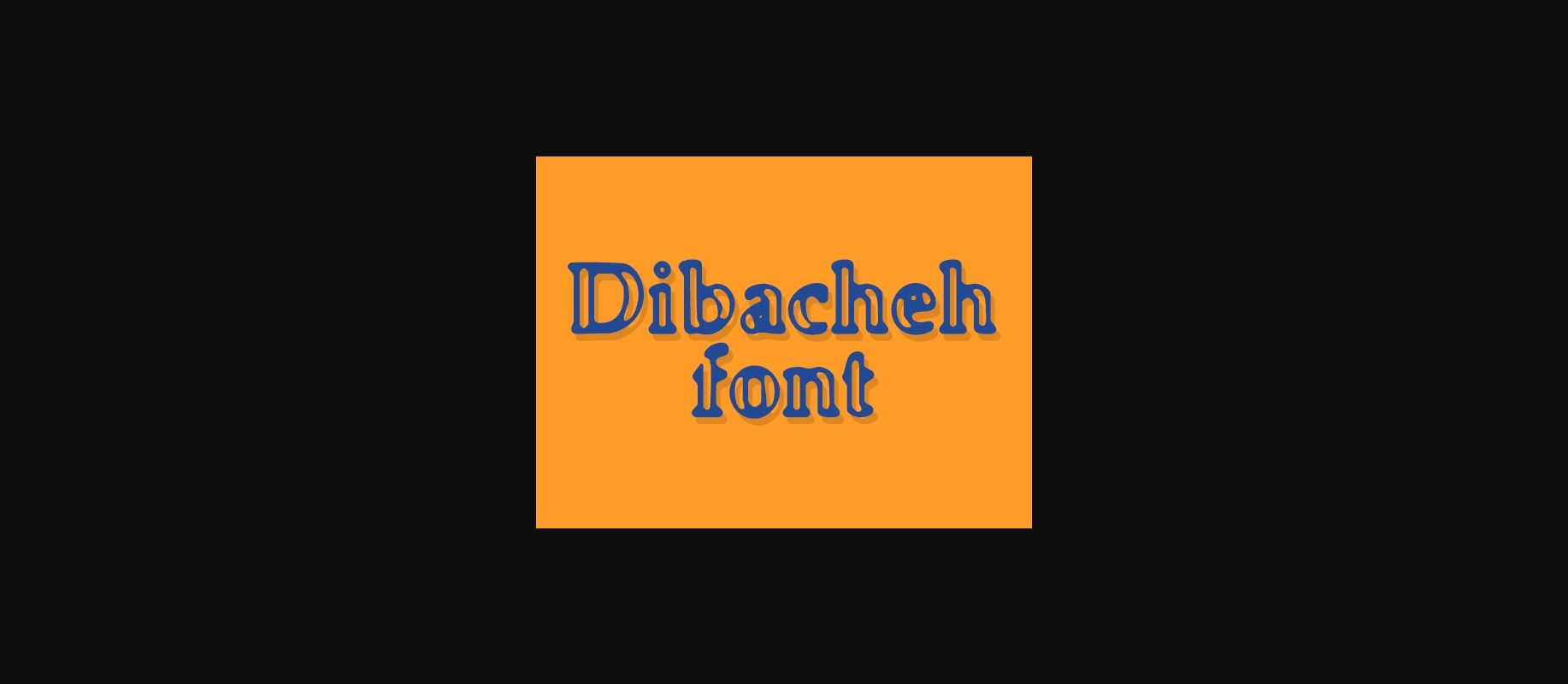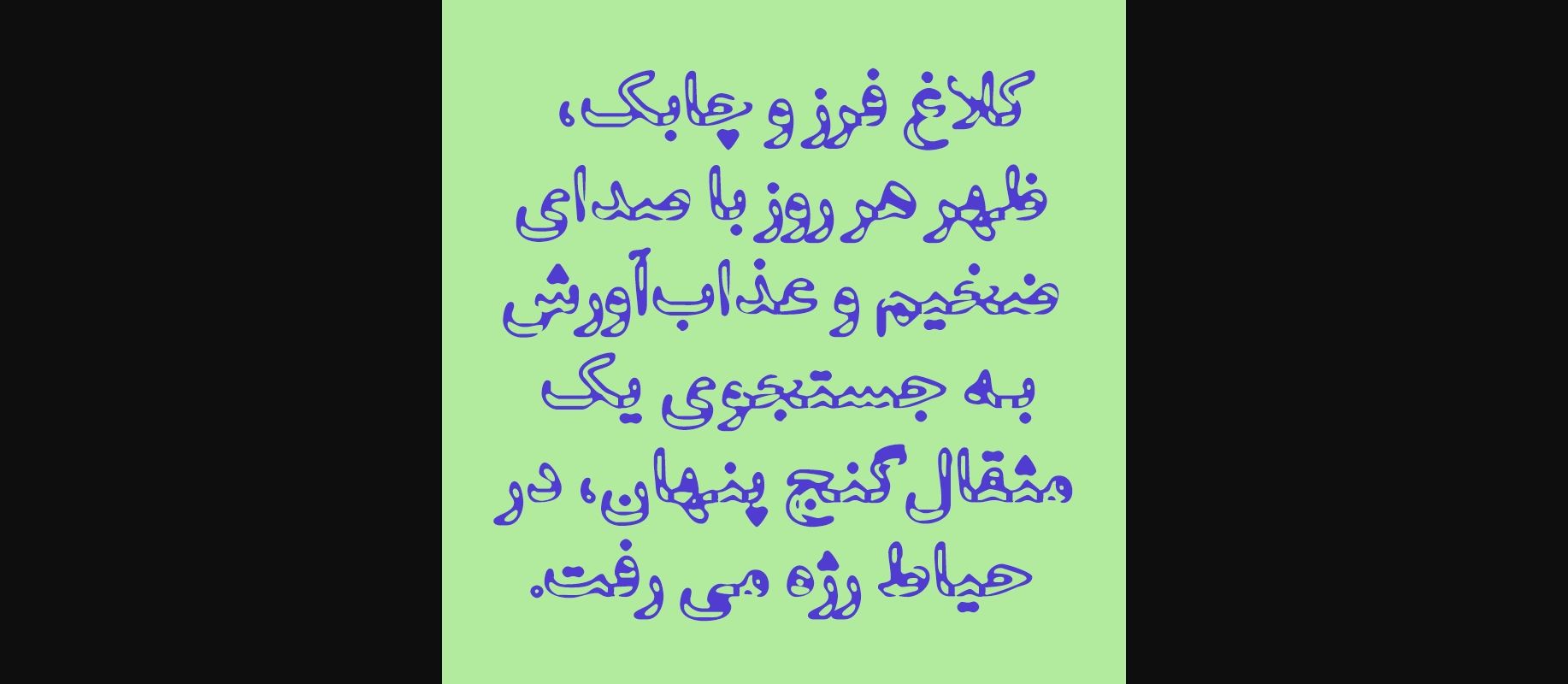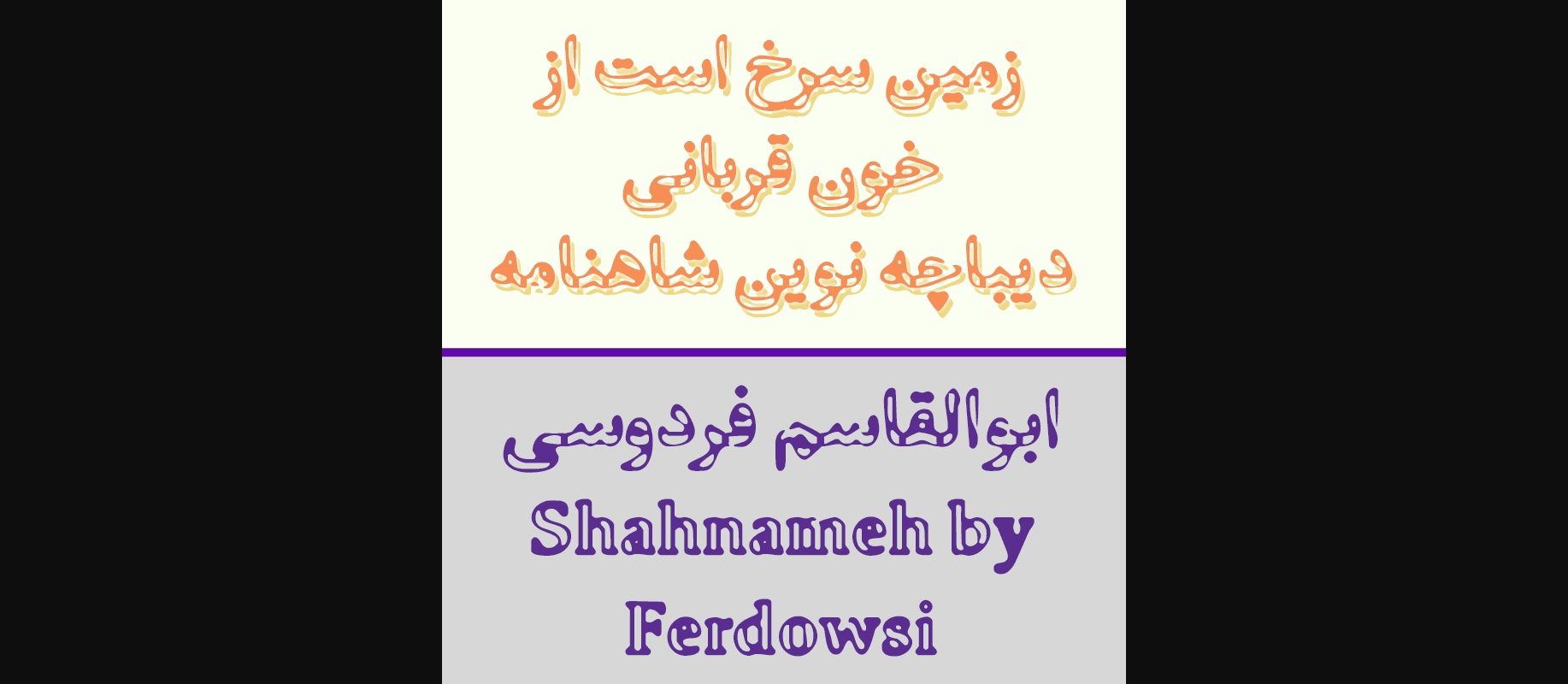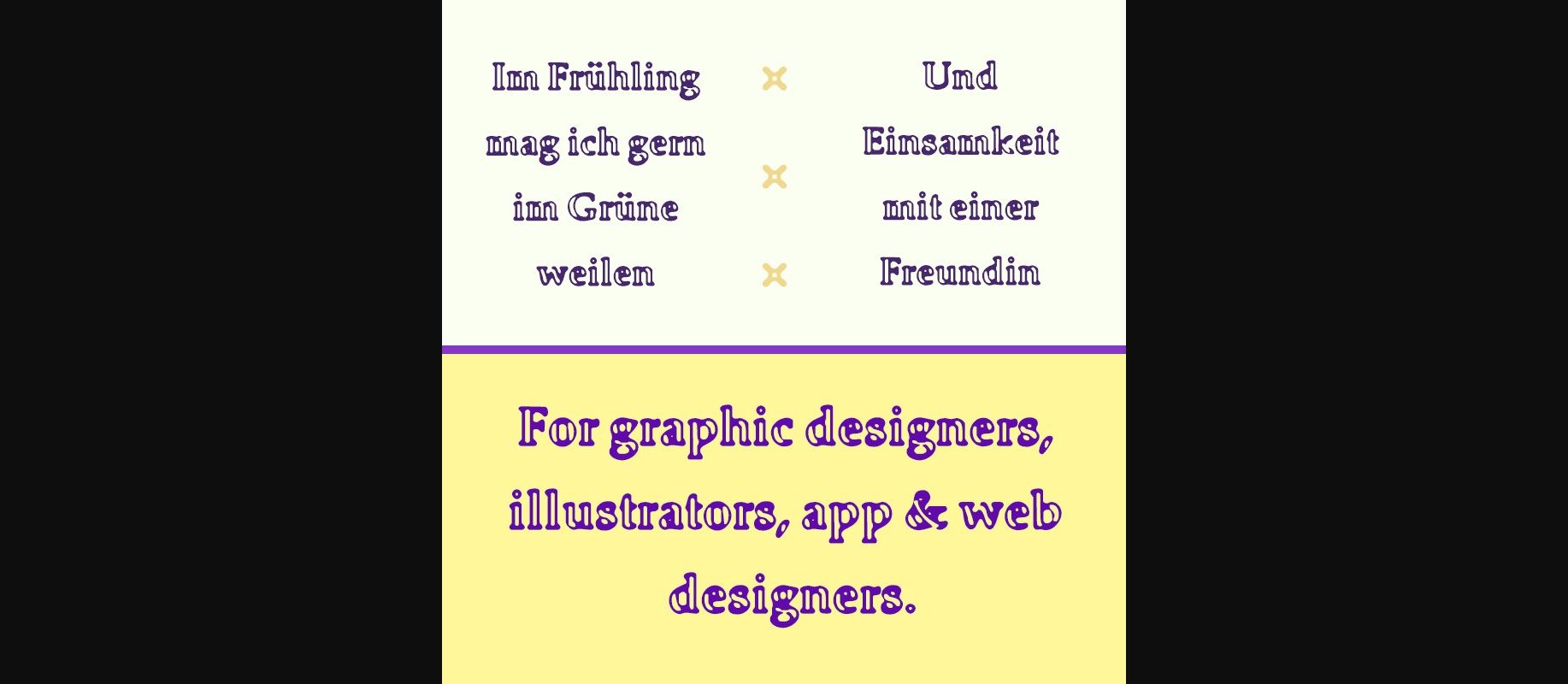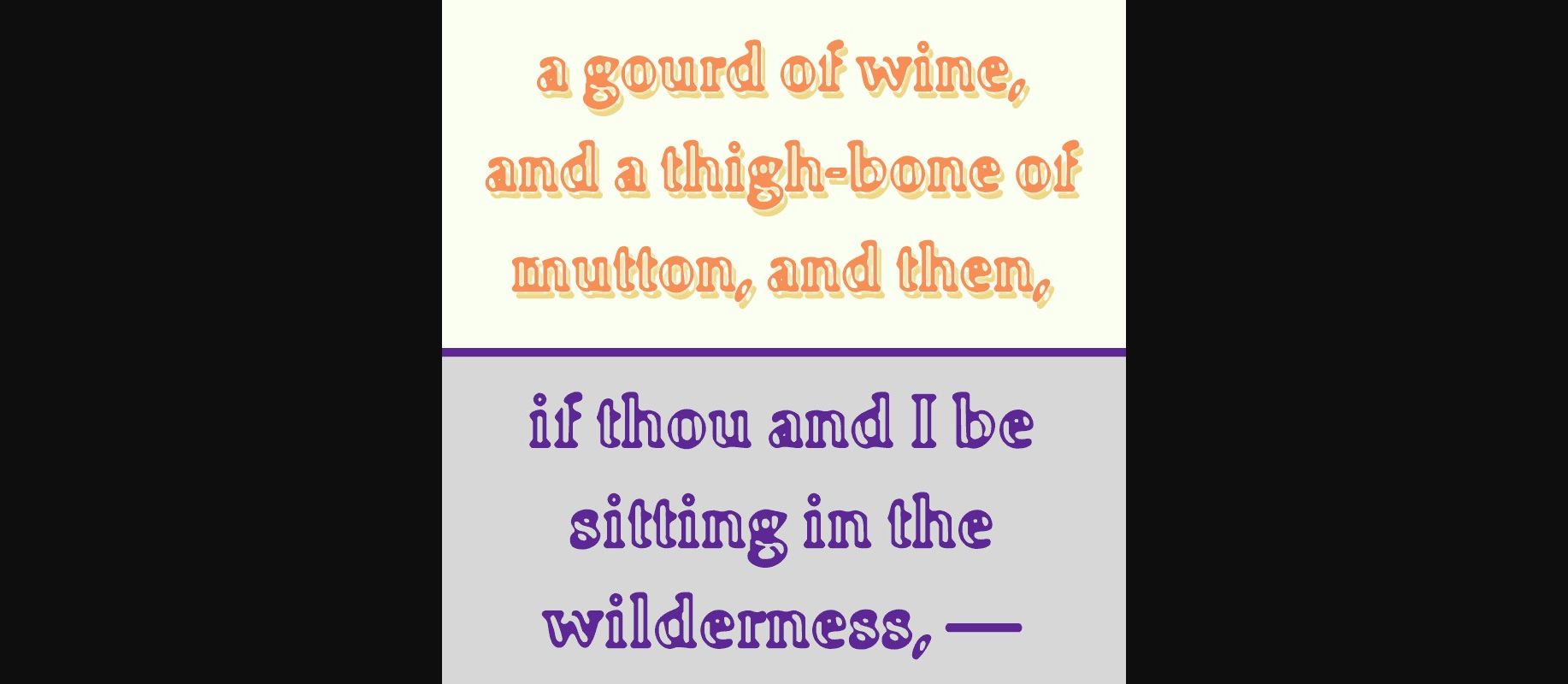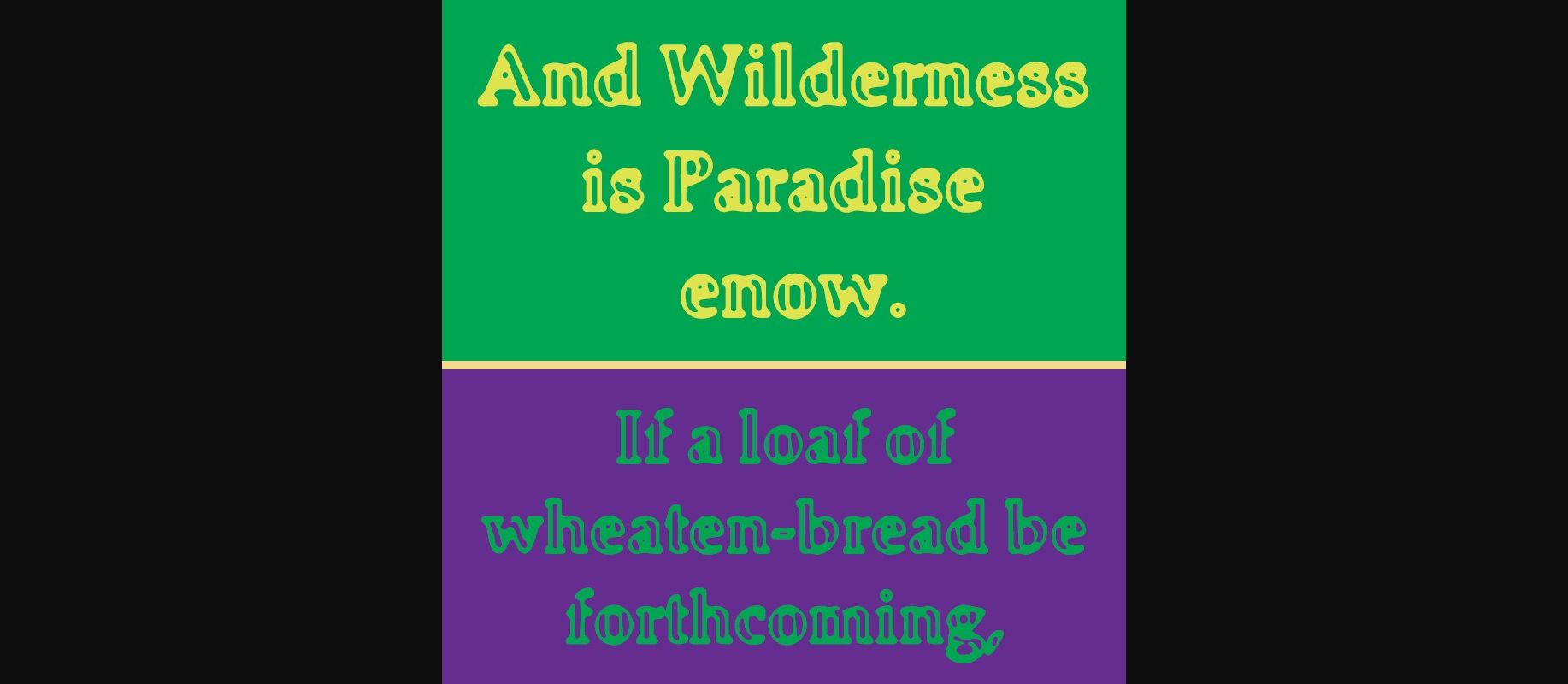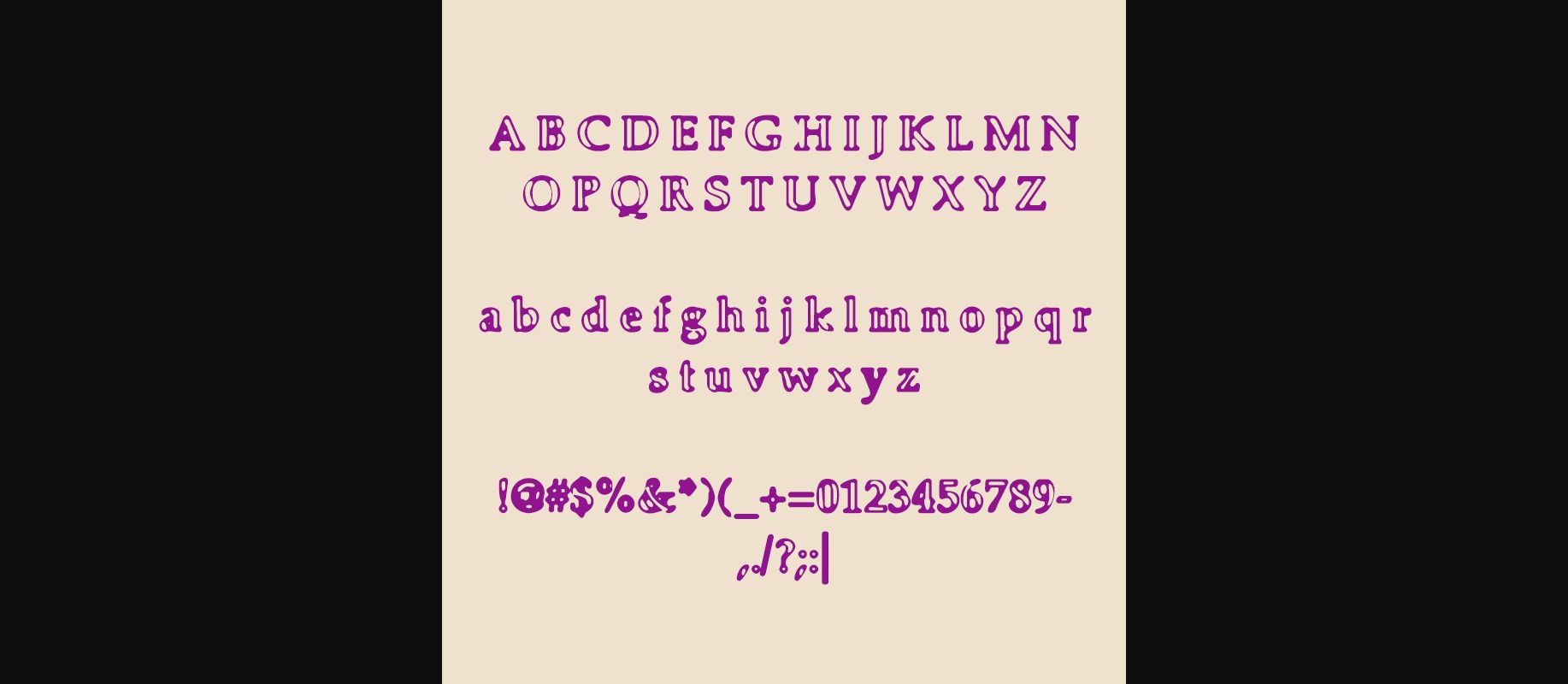
Dibacheh Font
About Dibacheh Font
This is an outlined bold Latin font that looks great for slogans, displays and more! Created in a serif style, Dibacheh is a great twist on the expected.